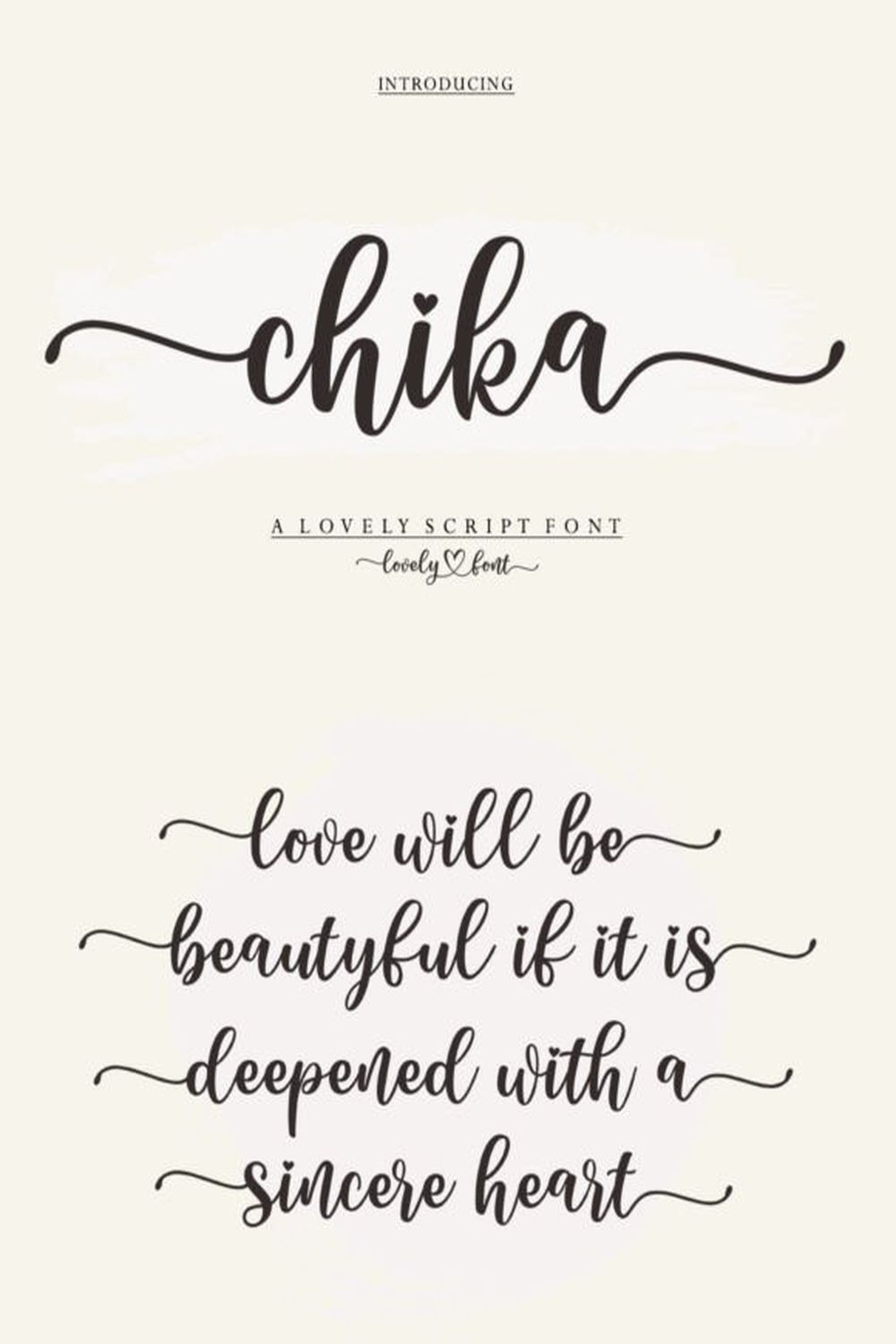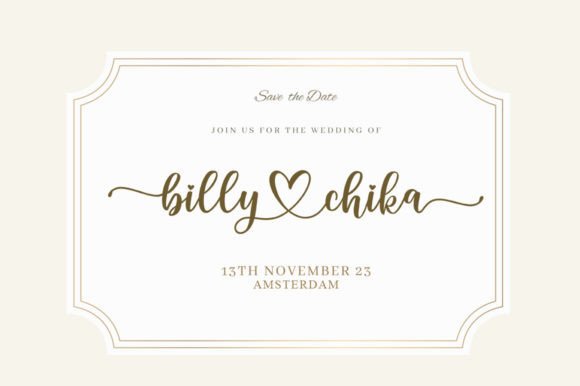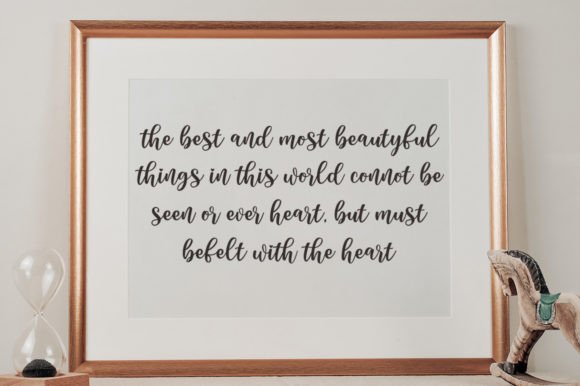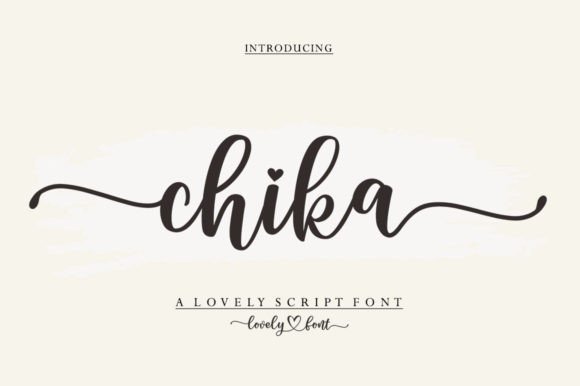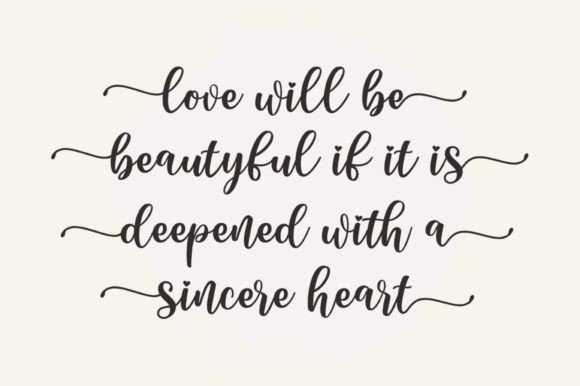
Chika Font: Sweet Cursive Handwritten Font for DIY & Cricut Projects
About the Chika Font
Unleash your creativity with Chika Font, a versatile font perfect for a wide range of applications. Chika is an attractive and cursive handwritten font. This gentle font will look impressive on lots of design ideas. It will add a fascinating flair to each of your projects! Keep in mind that the font is PUA encoded, meaning that you can access all delightful glyphs and swashes effortlessly.